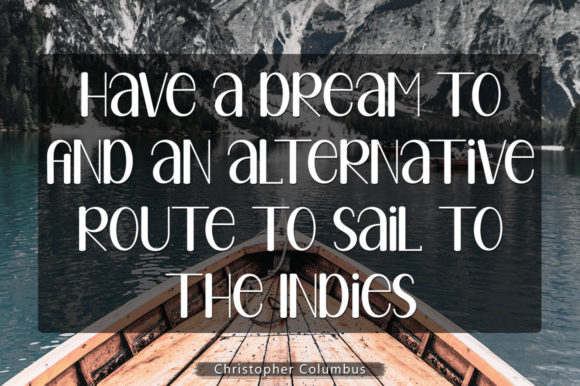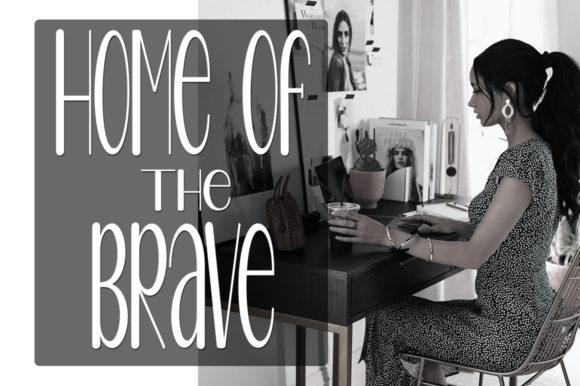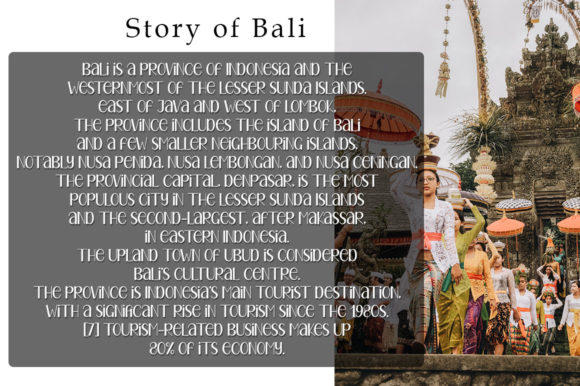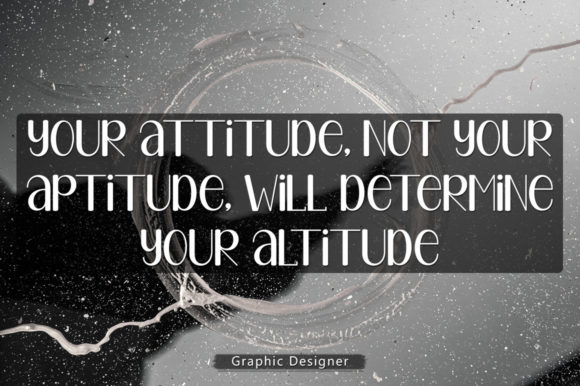
Introducing Columbus Font: The Ultimate Display Font for Creative Projects
Are you tired of using the same old fonts for your design projects? Look no further than Columbus Font, a simple, adaptable, and tall display font that’s perfect for adding a unique touch to your work. In this article, we’ll take a closer look at the features and benefits of Columbus Font, and explore how it can elevate your designs to the next level.
What is Columbus Font?
Columbus Font is a stylish and versatile display font that’s designed to make a statement. Its tall and slender letters make it ideal for use in a variety of creative projects, from web designs and business cards to posters, flyers, and more. Whether you’re a designer, crafty DIY enthusiast, or simply someone who loves to get creative, Columbus Font is a great addition to your font library.
Key Features of Columbus Font
- Simple and Adaptable: Columbus Font features a clean and minimalist design that’s easy to read and works well in a variety of contexts.
- Tall and Slender: The font’s tall letters make it perfect for headlines, titles, and other display text, while its slender design ensures it won’t overwhelm your design.
- Unique Touch: Columbus Font adds a touch of elegance and sophistication to any design, making it ideal for projects that require a bit of flair.
- Highly Versatile: This font can be used for a wide range of projects, from web designs and business cards to posters, flyers, and more.
Benefits of Using Columbus Font
So why choose Columbus Font for your next design project? Here are just a few benefits of using this versatile font:
- Easily Readable: Despite its tall and slender design, Columbus Font is easy to read, even at smaller sizes.
- Customizable: The font’s simple design makes it easy to customize and modify to suit your needs.
- Time-Saving: With Columbus Font, you can create professional-looking designs in no time, saving you time and effort.
- Unique Style: This font adds a touch of elegance and sophistication to any design, setting it apart from more generic fonts.
Who Can Benefit from Columbus Font?
Columbus Font is perfect for a wide range of designers, crafters, and DIY enthusiasts, including:
- Graphic Designers: Add a touch of elegance and sophistication to your designs with this versatile font.
- Web Designers: Use Columbus Font to create stunning web designs that stand out from the crowd.
- Crafty DIY Enthusiasts: Add a professional touch to your handmade projects, from business cards to posters and more.
- Small Business Owners: Create professional-looking marketing materials, from business cards to flyers and brochures.
How to Use Columbus Font
Here are a few tips for getting the most out of Columbus Font:
- Experiment with Different Sizes: Play around with different font sizes to find the perfect balance for your design.
- Pair with Other Fonts: Combine Columbus Font with other fonts to create a unique and eye-catching design.
- Use for Headlines and Titles: Take advantage of the font’s tall and slender design by using it for headlines and titles.
| Font Name | Columbus Font |
| Author | Strong.co |
Columbus Font is a versatile and stylish display font that’s perfect for adding a unique touch to your design projects. With its simple and adaptable design, tall and slender letters, and highly versatile nature, this font is sure to become a favorite in your font library. Whether you’re a designer, crafty DIY enthusiast, or simply someone who loves to get creative, Columbus Font is a great choice for any project that requires a bit of elegance and sophistication.